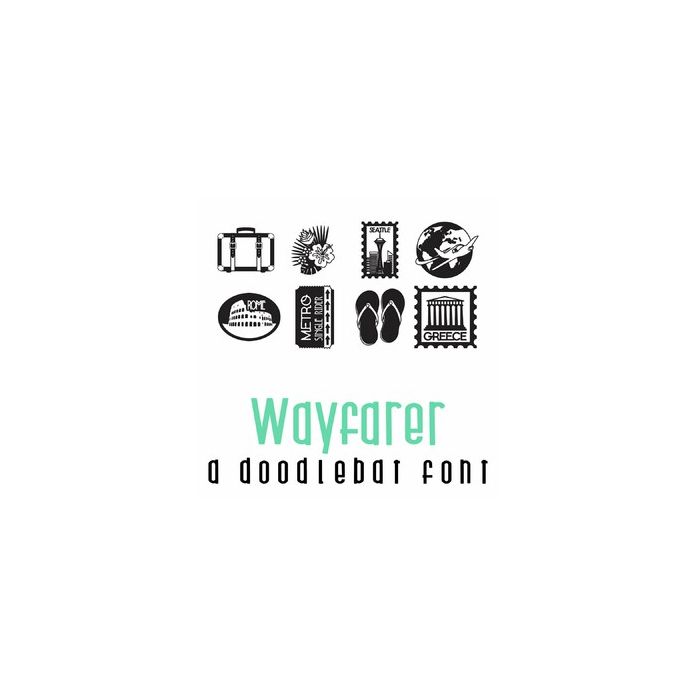
Wayfarer Doodlebat Font
This fun doodlebat font features 26 travel-inspired images. Perfect for cards, crafts, gifts, decor, scrapbook pages, planner stickers and more!